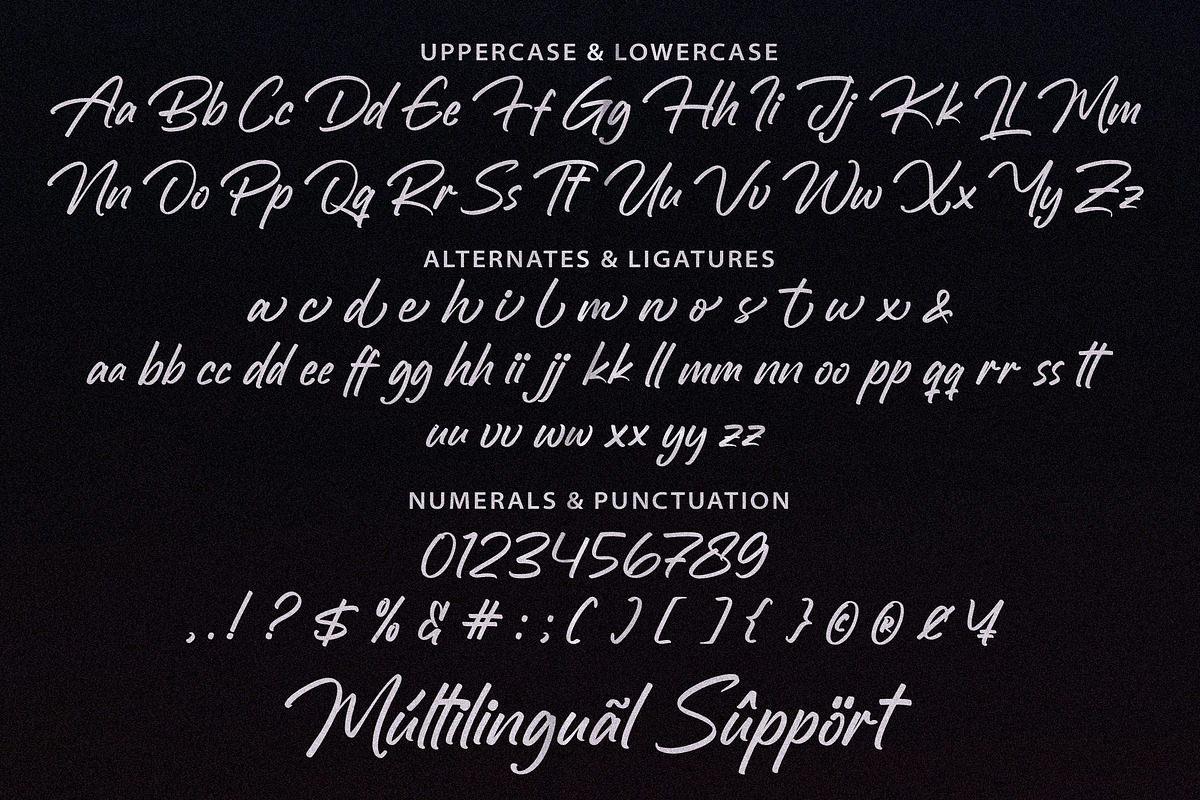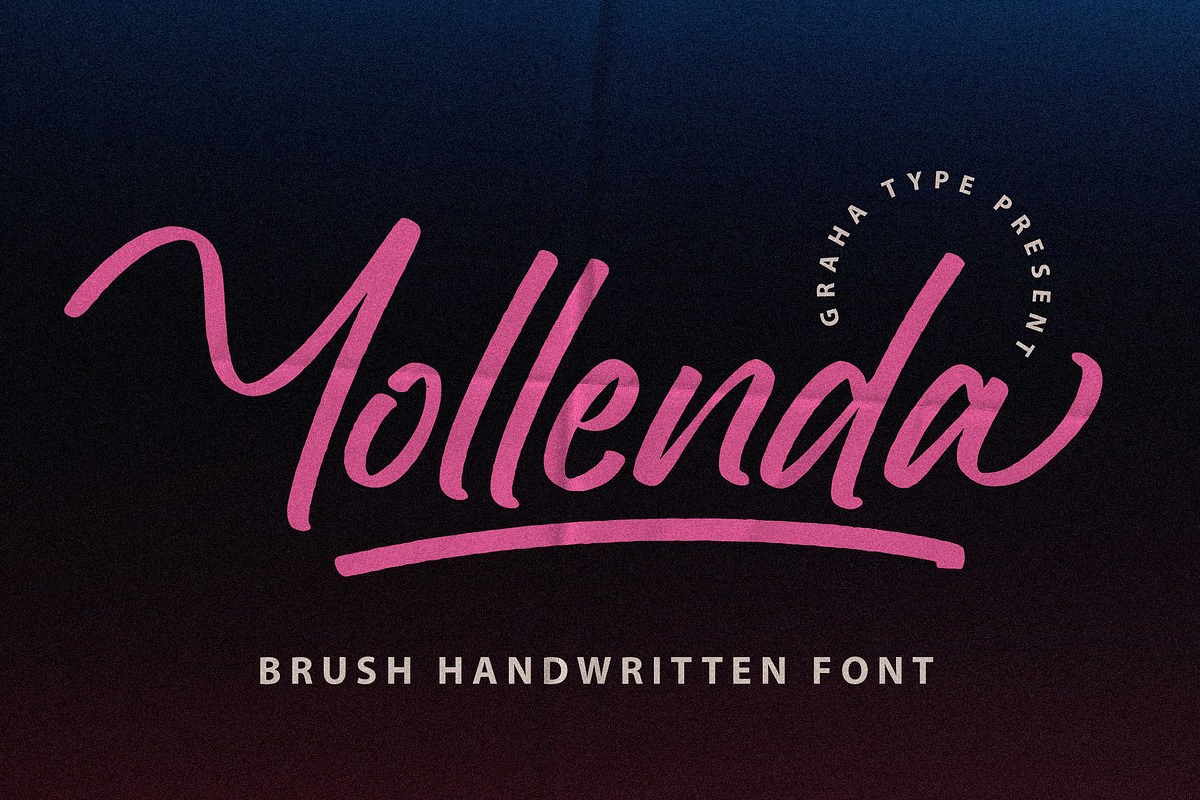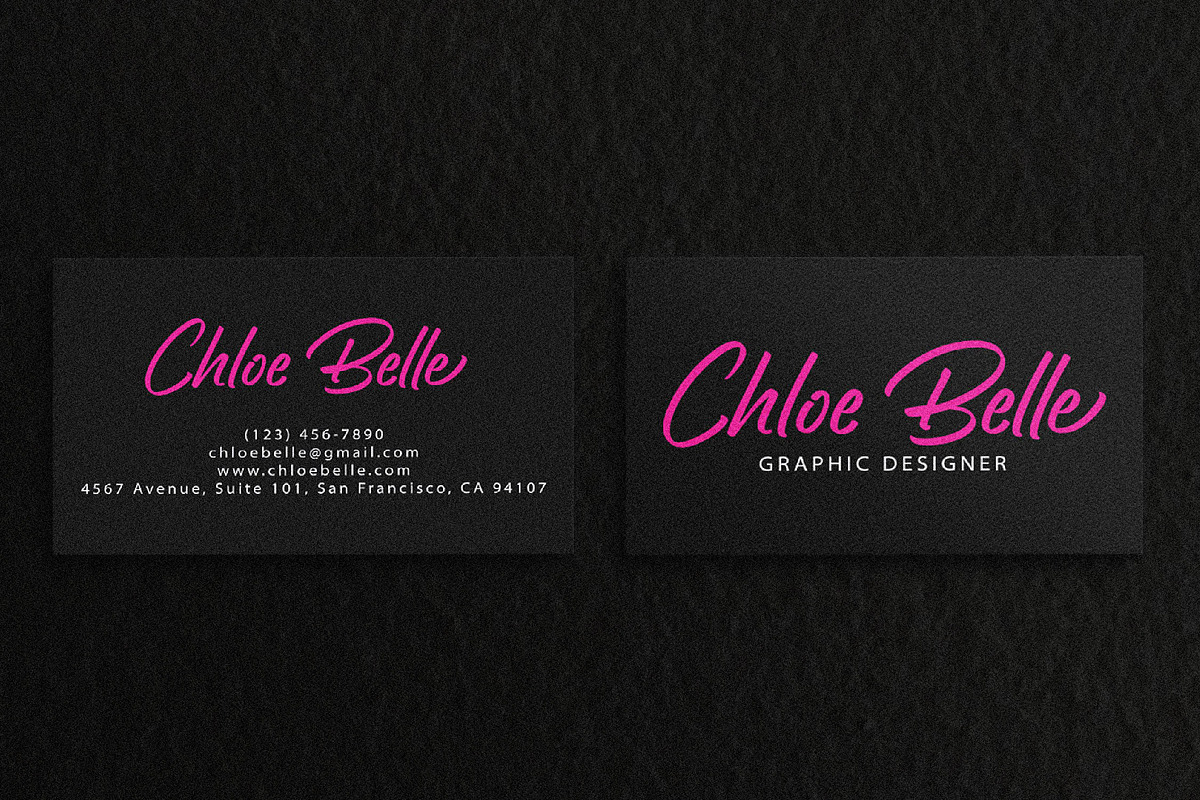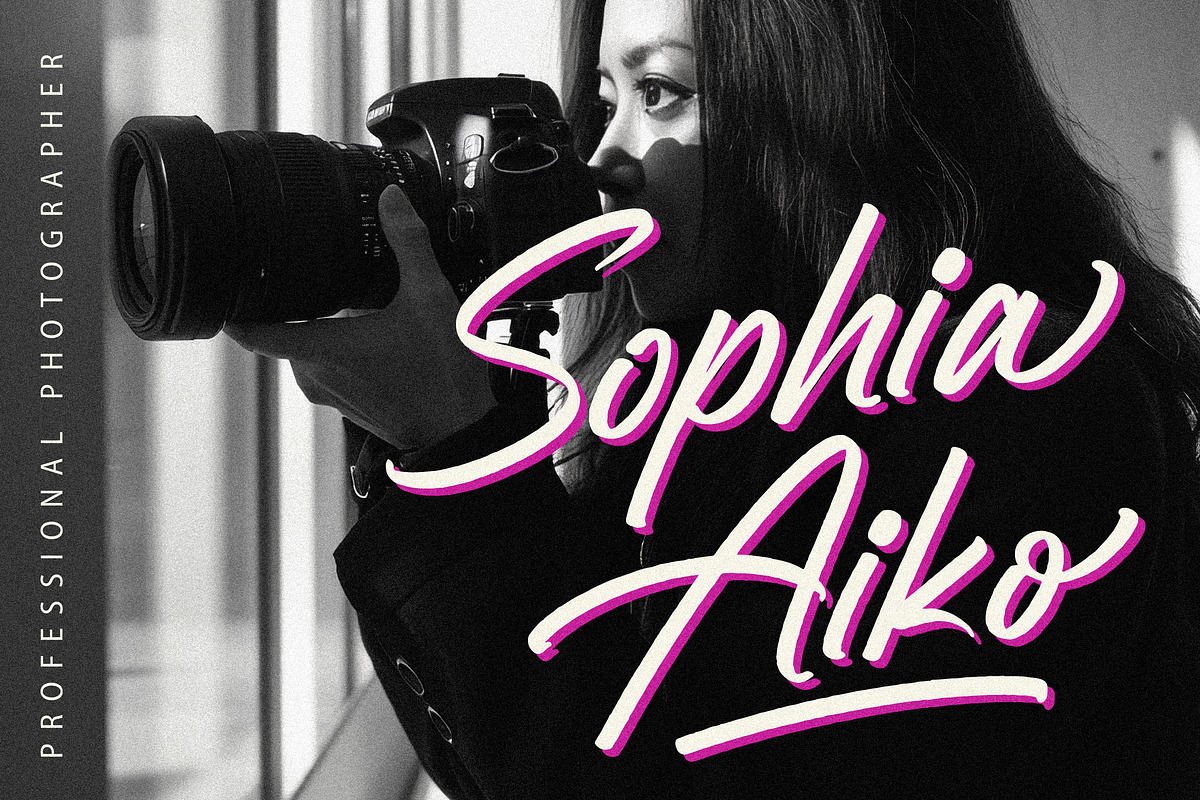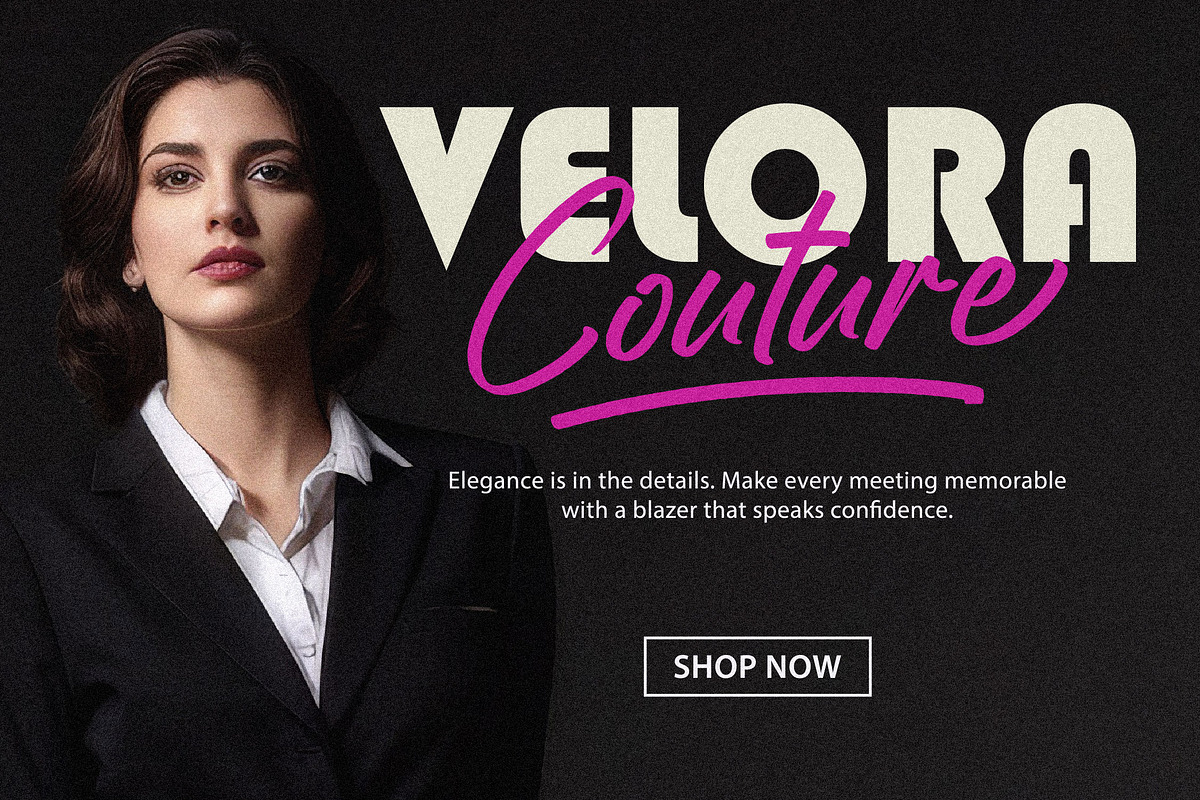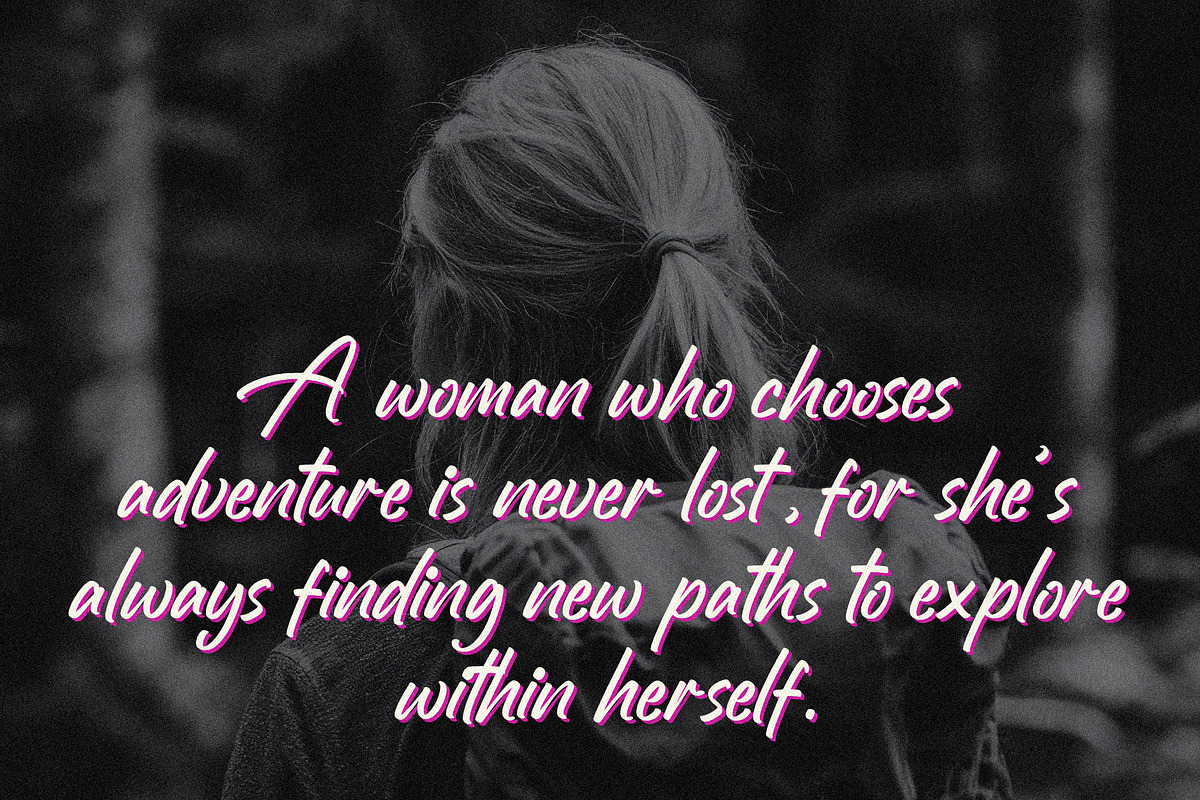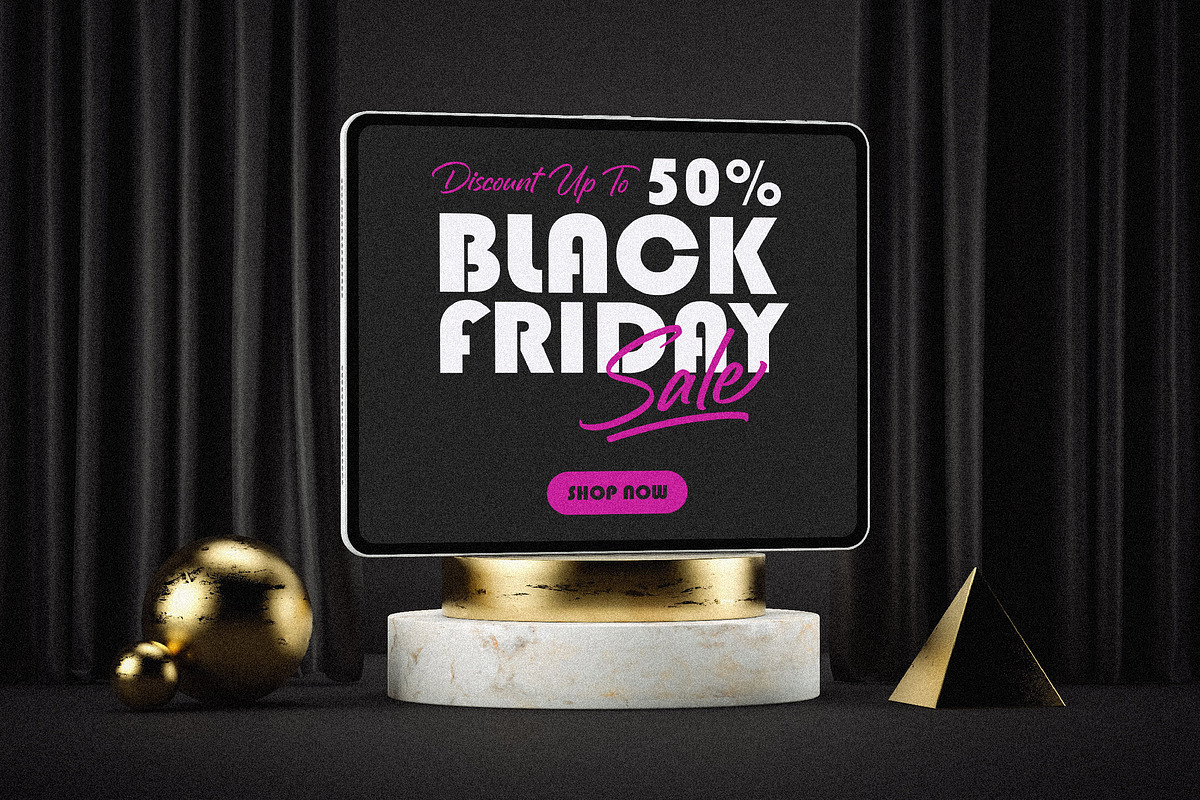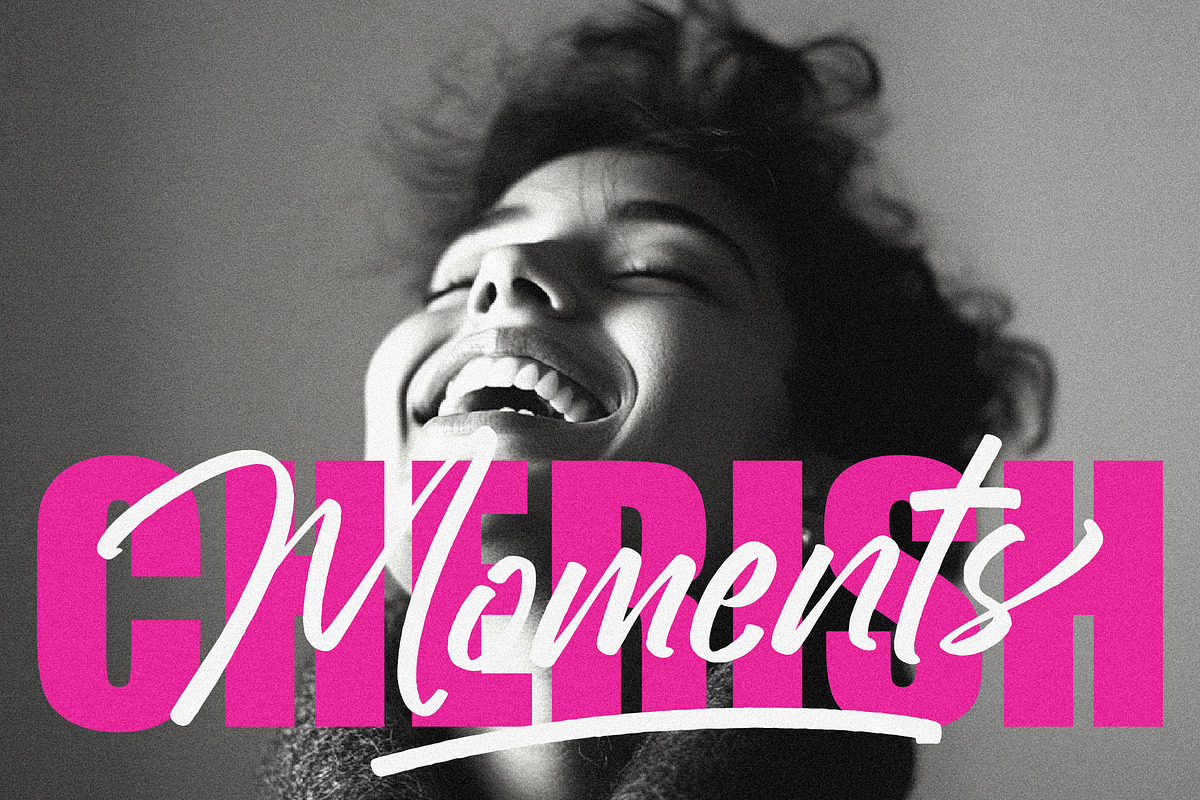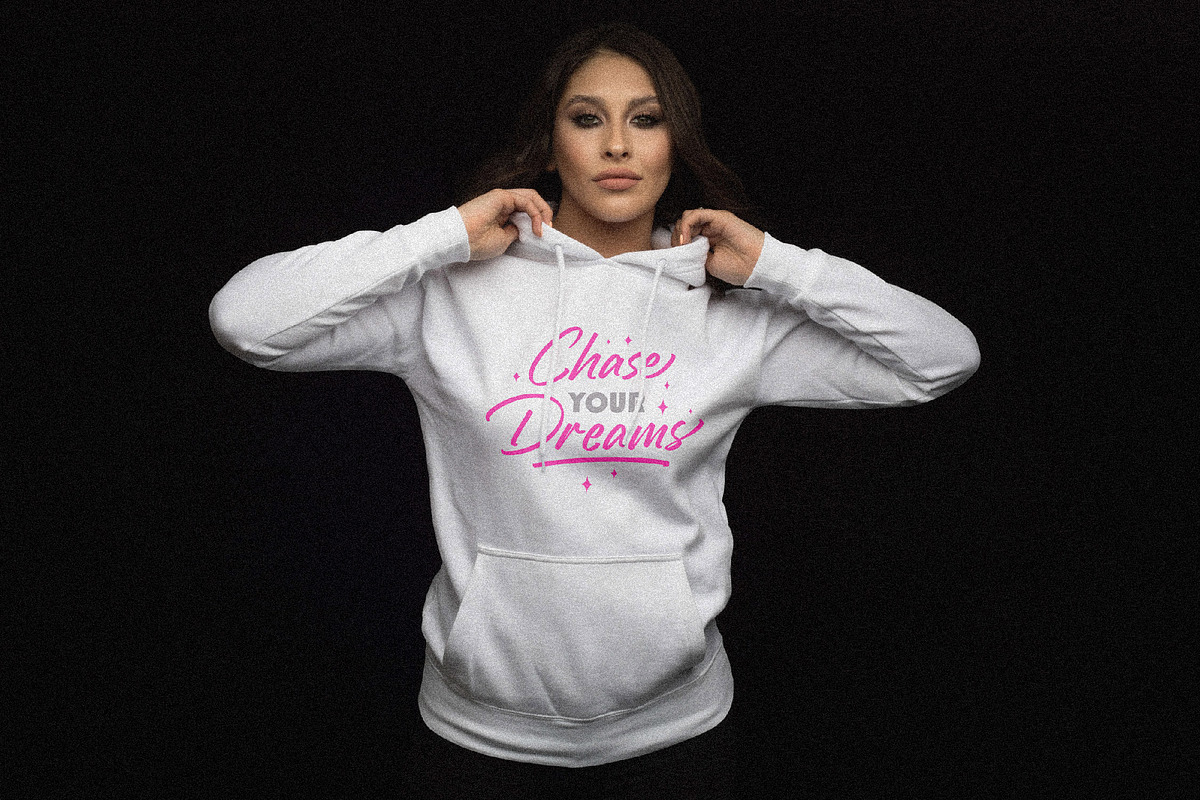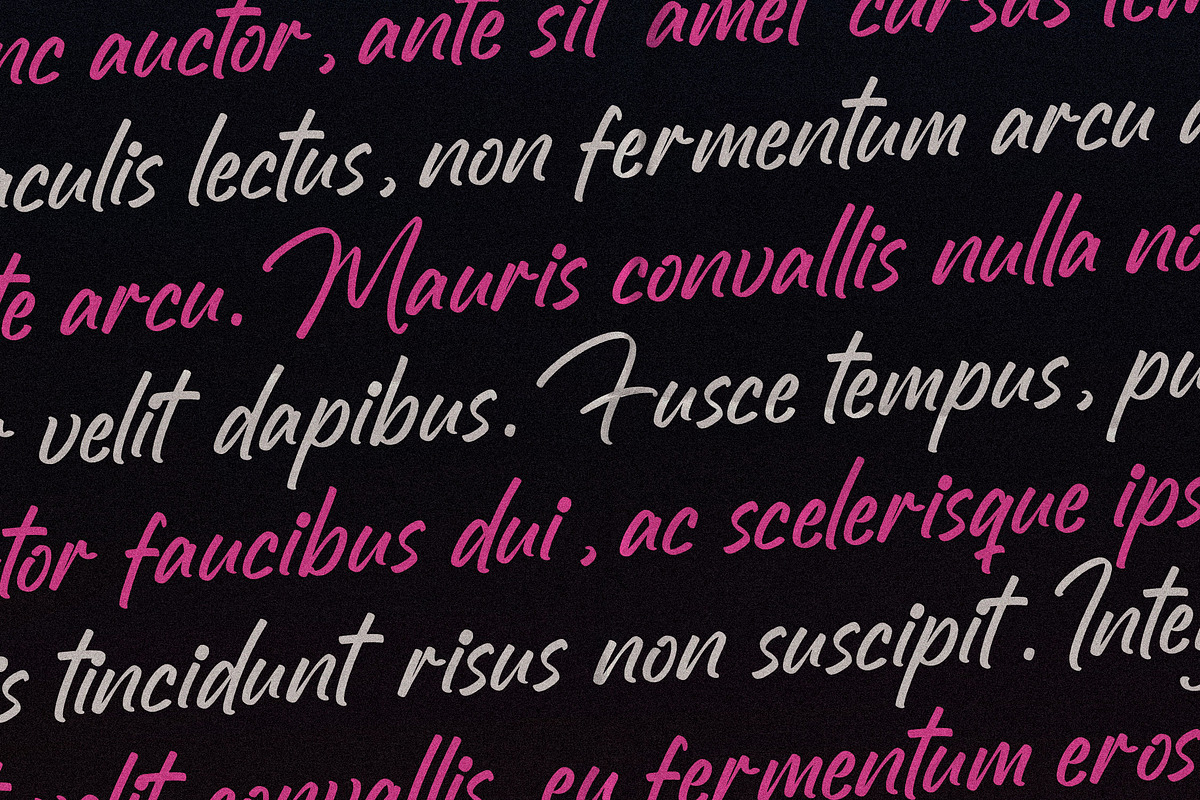
Yollenda - Brush Handwritten
Yollenda is a modern brush handwritten font that combines fluid, organic strokes with a stylish, contemporary flair. Its elegant curves and dynamic lines give it a sense of energy and personality, making it a perfect choice for logotypes, apparel, branding, and various other design projects. The font’s unique character brings a personal, hand crafted feel to your designs, while maintaining a polished and professional look. Yollenda’s versatility and bold aesthetic make it an excellent option for creating memorable, impactful designs that stand out in both digital and print mediums.